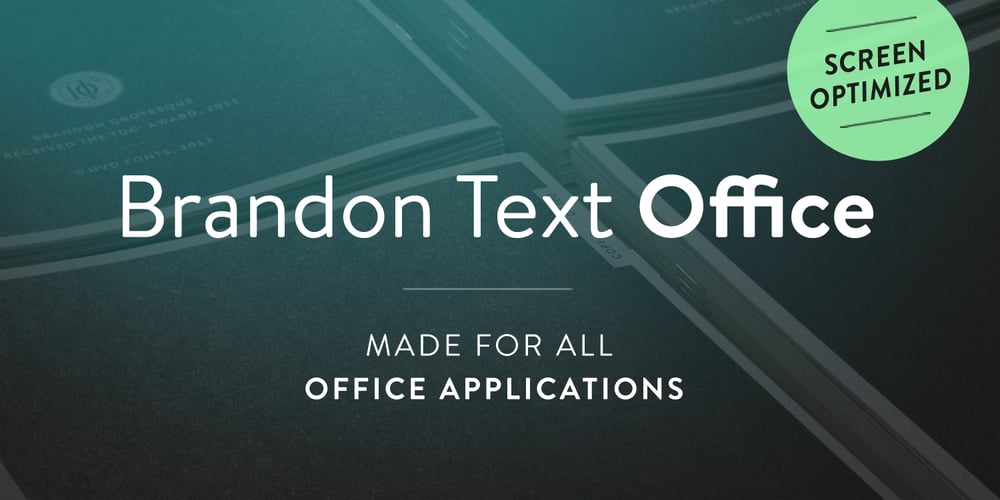
Brandon Text Office Font Family was designed by Hannes von Döhren and published by HVD Fonts. Brandon Text Office contains 4 styles and family package options. Brandon Text is the companion of the famous Brandon Grotesque type family. It has a higher x-height than the Grotesque version and is optimized for long texts, small sizes and screens. This special Office version of Brandon Text is especially for all Microsoft Office applications (Word, Excel, Powerpoint …). It contains just the 4 basic styles which are style-linked and can be easily accessed by the “I” or “B” button in Office. The fonts are manually hinted so their appearance is also optimized for these applications.